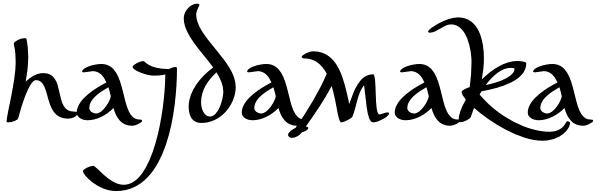
Hajdamaka
This script has almost no historic roots. It is named after hajdamakas, Ukrainian guerilla fighters from past times. It is lively and somehow saucily forms the vibrant lines of a text.
Hajdamaka Font